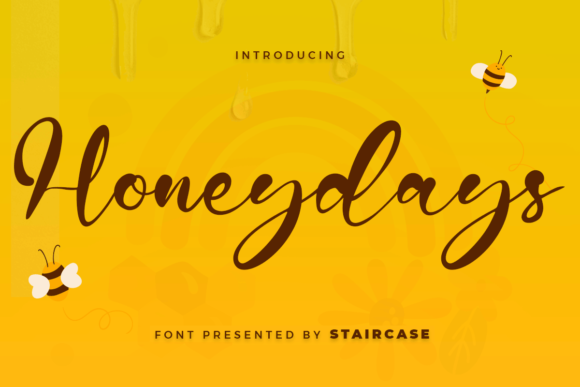
Introducing Honeydays Font: A Scriptwriting Masterpiece for Unforgettable Visual Stories
In a world where creativity thrives and visual storytelling reigns supreme, Honeydays Font emerges as a game-changer. This modern script font, meticulously crafted by the visionary artists at staircasestudio20, is an ode to the art of handmade lettering, capturing the essence of elegance, playfulness, and charm.
Honeydays Font: Where Imagination Takes Flight
Immerse yourself in a world of boundless imagination, where Honeydays Font serves as your trusted companion. This exquisite script, with its graceful curves and endearing quirks, transforms ordinary words into captivating narratives. Each letter, meticulously designed to evoke emotion and intrigue, dances across the page, leaving a trail of visual delight.
Whether you're weaving tales through comic scripts, designing logos that captivate, or crafting digital lettering arts that resonate, Honeydays Font is your ultimate creative ally. Its versatility knows no bounds, effortlessly adapting to a symphony of design projects.
From the vibrant hues of posters and magazines to the eye-catching appeal of T-shirts and apparel, Honeydays Font breathes life into every project it graces. Its presence elevates branding designs, adds a touch of whimsy to signage, and infuses advertising campaigns with a dash of unforgettable charm.
Why Honeydays Font is Your Creative Soulmate
Honeydays Font is more than just a collection of letters and numbers; it's an invitation to embark on an artistic journey where your imagination knows no limits. Its enchanting script weaves its magic, transforming mundane designs into captivating masterpieces.
With Honeydays Font, you'll discover:
A Modern Twist on Classic Script: Honeydays Font brings a refreshing touch of contemporary style to the classic script genre, ensuring your designs stand out from the crowd.
Endless Creative Possibilities: From enchanting comic scripts to captivating logos, alluring digital lettering arts to visually stunning posters, Honeydays Font empowers you to explore a universe of creative possibilities.
Effortless Versatility: Whether you're designing for print or digital, Honeydays Font seamlessly adapts to your medium of choice, delivering stunning results every time.
A Font that Speaks to the Heart: Honeydays Font's emotive design connects with audiences on a deeper level, creating visuals that resonate and leave a lasting impression.
Unleash Your Creative Potential
Honeydays Font is not merely a tool; it's a catalyst for your creative genius. Its intuitive design empowers you to express yourself freely, to weave tales that capture hearts, and to create visuals that leave an indelible mark.